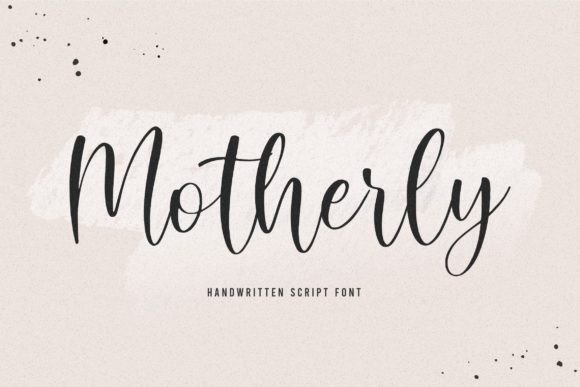
Introducing Motherly Font - The Exquisite Script to Make Your Designs Bloom
Take your designs to new heights of elegance with Motherly Font, an enchanting calligraphy typeface crafted with meticulous detail by Aestherica Studio. This enchanting script font, boasting a lively baseline dance, will infuse your projects with a touch of luxury and sophistication. Whether you're creating enchanting invitations, greeting cards, wedding stationery, logos, or captivating social media posts, Motherly Font will captivate your audience and leave a lasting impression.
Step into a world of endless possibilities as you explore the versatility of Motherly Font. Its graceful curves and fluid strokes lend a touch of allure to any design, whether you're working on branding materials, advertisements, or website designs. Motherly Font's inherent charm lies in its ability to seamlessly adapt to diverse styles, making it an indispensable tool for designers seeking a versatile and timeless font.
Immerse yourself in a symphony of creativity as Motherly Font dances across your screen, leaving a trail of visual delight. Its remarkable ability to capture the essence of romance and sweetness makes it an ideal choice for expressing heartfelt messages, heartfelt invitations, and enchanting stories. Let your words take flight and touch the hearts of your readers with the delicate touch of Motherly Font.
Embrace the allure of Motherly Font and embark on a journey of creative exploration. With its innate elegance and enchanting charm, this script font will elevate your designs to new heights of sophistication. Seize the opportunity to leave an unforgettable mark on your audience and let your creations resonate with beauty and grace.